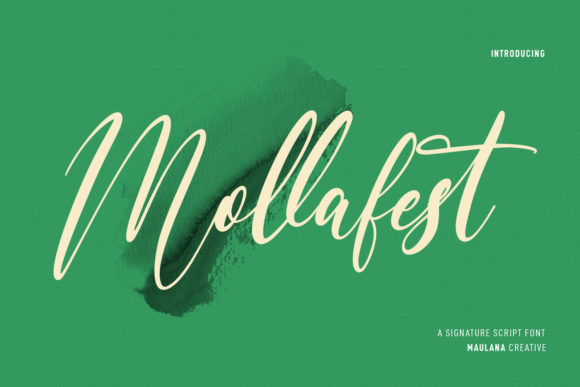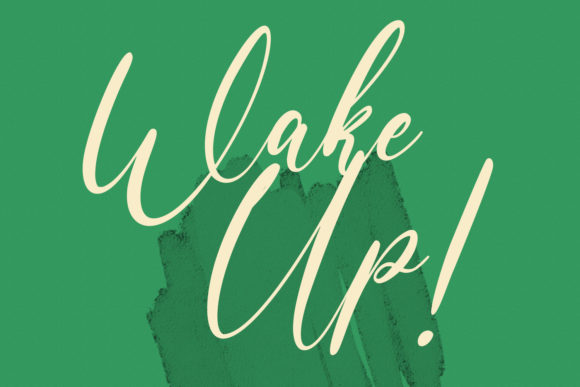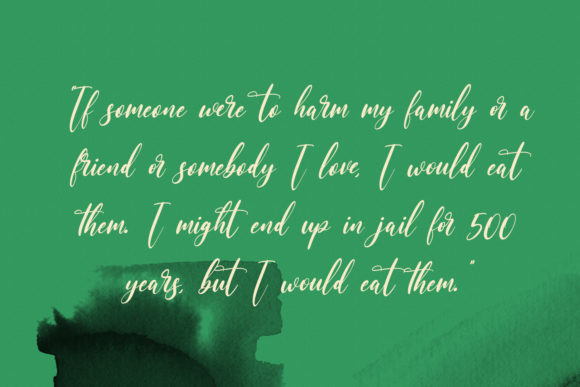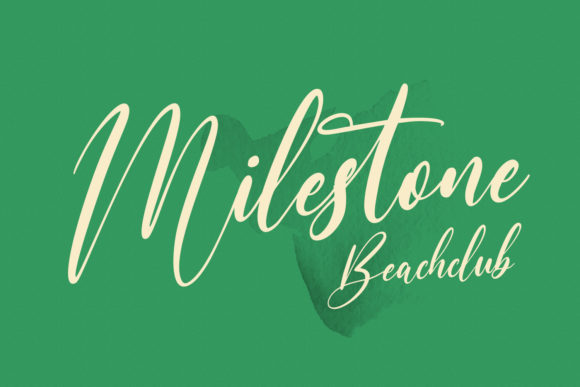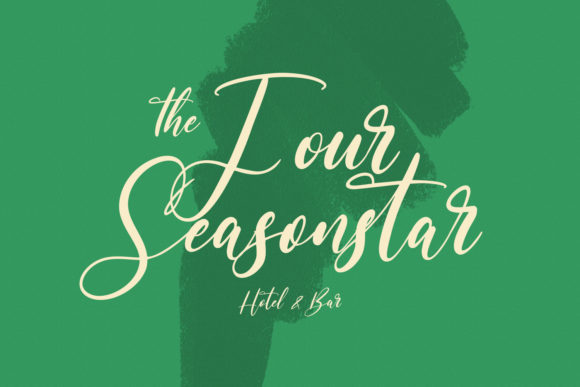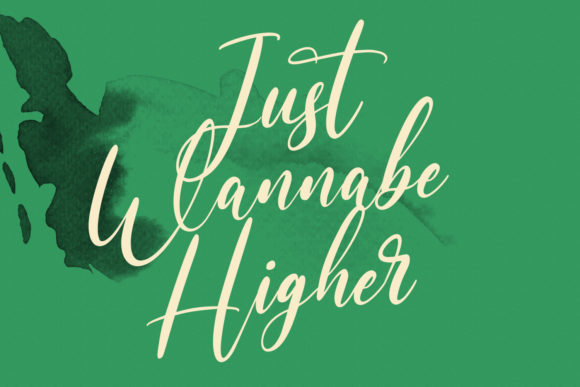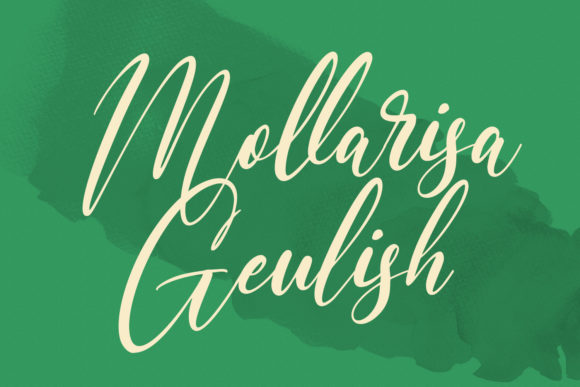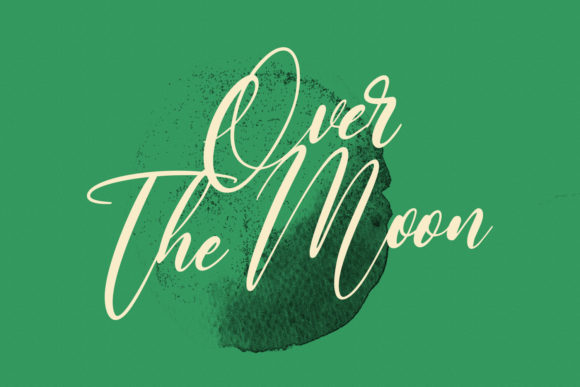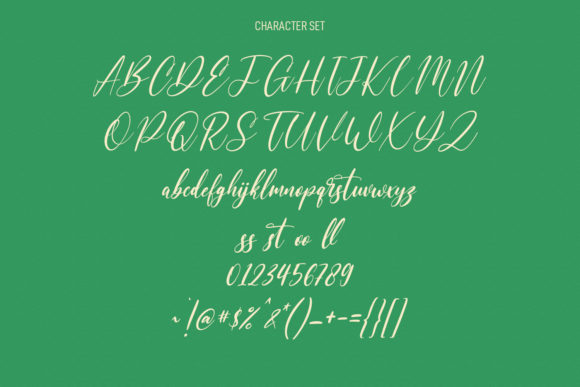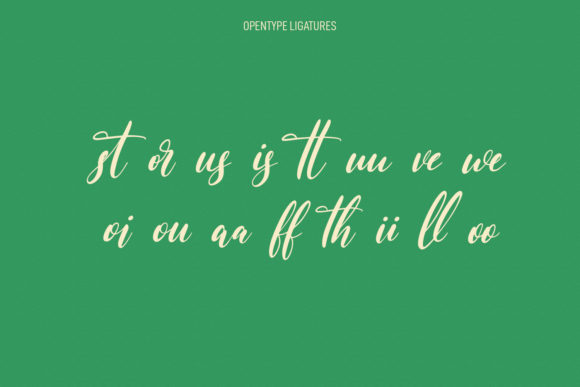
Mollafest Script Font
About Mollafest Script Font
“Mollafest is not just a font; it’s a work of art. This superb handwritten font is a testament to the beauty of typography. With its elegant and curvy lines, Mollafest is designed to make your work stand out. It’s more than just a typeface; it’s a tool for creating stunning visuals that captivate and inspire.
One of the standout features of Mollafest is its versatility. It is perfect for a wide range of projects, from product packaging and branding to magazine covers, social media posts, weddings, and more. Whether you’re a professional designer working on a major project or a hobbyist creating personalized items, Mollafest is the font for you.
But Mollafest is not just versatile; it’s also fashionable. With its modern and stylish design, Mollafest is a font that stays ahead of the trends. It’s a font that makes a statement, a font that stands out. Whether you’re creating a logo for a cutting-edge fashion brand or designing a poster for a trendy event, Mollafest is the font that will help you make a statement.
Moreover, Mollafest is designed to look extraordinary in a variety of contexts. Whether it’s on a business card, a website, a billboard, or a t-shirt, Mollafest shines. Its unique style and character make it a versatile and adaptable font that can elevate any design.
But the beauty of Mollafest goes beyond its design. It’s also a font that’s easy to use. With its clear and legible characters, Mollafest is a font that’s easy to read and understand. This makes it a great choice for designs that need to communicate clearly and effectively.
In conclusion, Mollafest is a superb handwritten font that’s perfect for any project. With its unique style and versatility, it’s a font that can make any design stand out. Whether you’re a professional designer or a hobbyist, Mollafest is a font that’s worth checking out.”